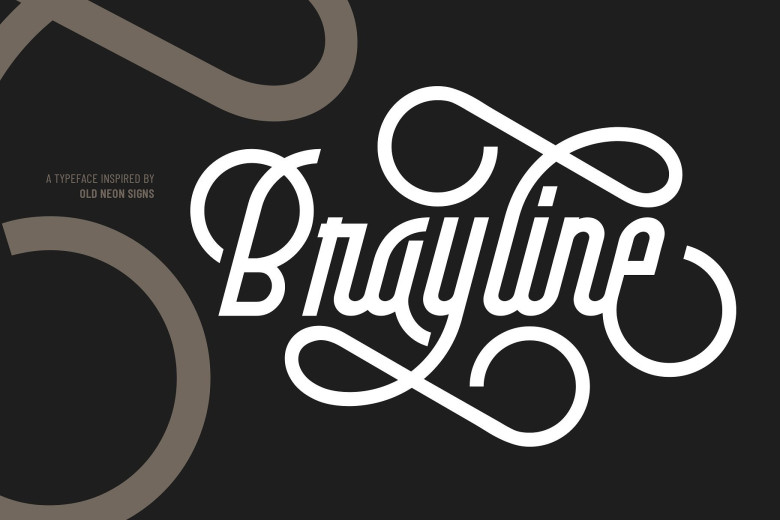
Brayline Typeface
Introducing Brayline Font. Brayline is a monoline swashed script, a typeface inspired by old neon signs. It contains with more than 400 glyphs, including alternative characters such as: Titling, Terminal Forms, Stylistic Alternates, Stylistic Set, and Swash Variant. Brayline very suitable to use on many of your design projects such as Signage , Book Covers, Invitation, Packaging, Logotype and more.